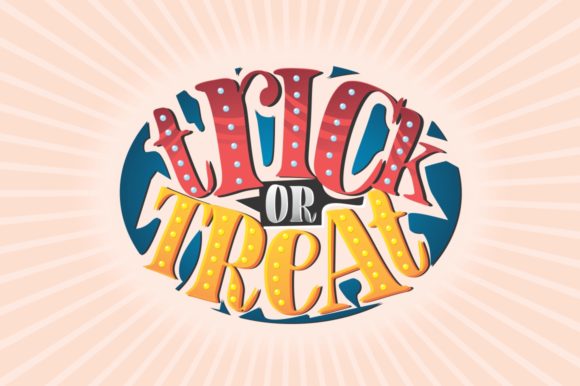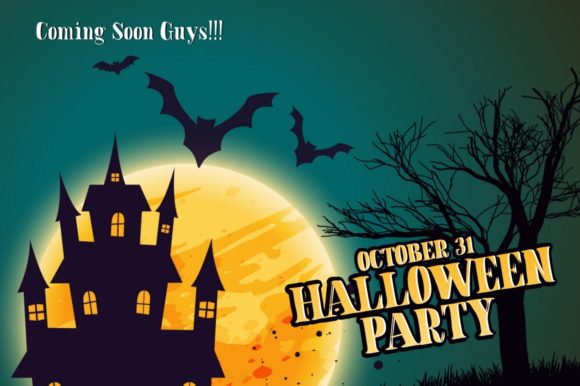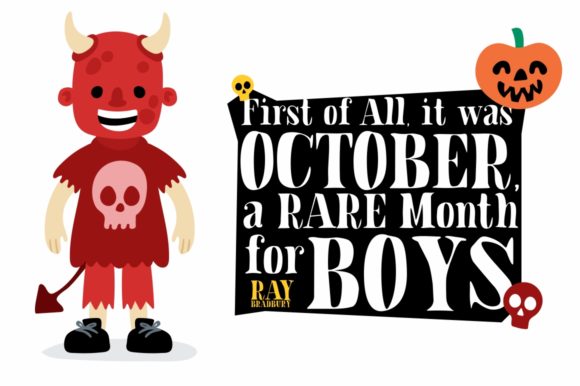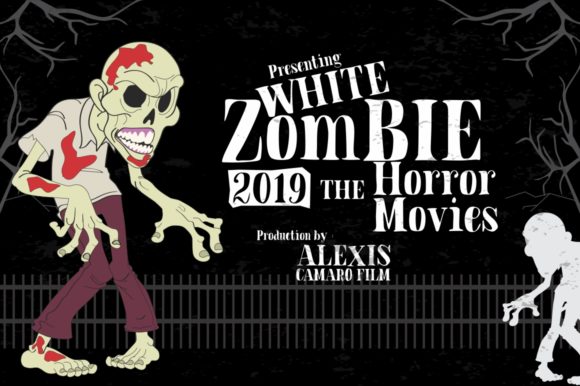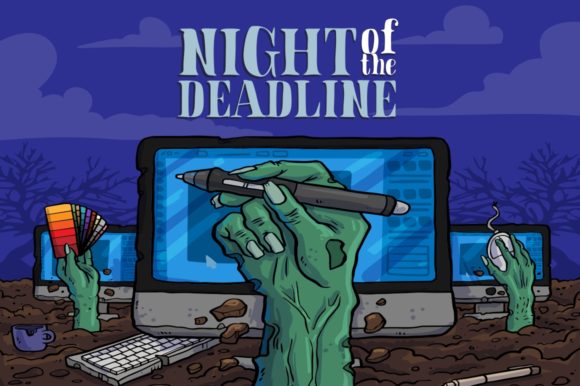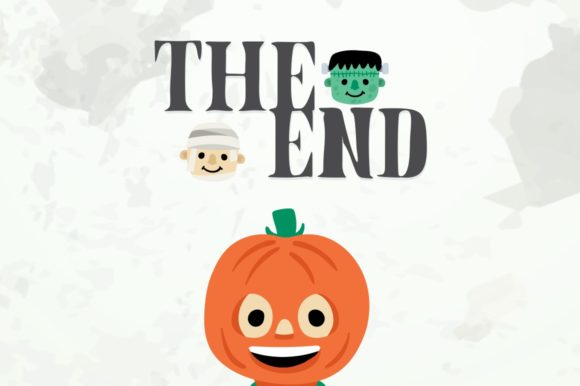
Happy Halloween with Blade Font: The Perfectly Spooky Display Typeface
Are you ready to add a spooky touch to your trick-or-treat projects? Look no further than the Blade Font, a creepy display typeface that’s sure to make your designs stand out. In this article, we’ll dive into the details of this eerie font and explore how it can elevate your Halloween-themed creations.
What is Blade Font?
Blade Font is a unique display typeface designed specifically for Halloween-themed projects. Its creepy, scary, and spooky design makes it perfect for creating eye-catching titles, headings, and phrases that will leave a lasting impression on your audience.
Key Features of Blade Font
- Creepy and Spooky Design: Blade Font features a distinctive design that’s sure to send chills down the spine. Its jagged edges and irregular shapes create a sense of eeriness, making it perfect for Halloween-themed projects.
- Highly Readable: Despite its creepy design, Blade Font is highly readable, even at smaller sizes. This makes it versatile for use in various projects, from posters and flyers to social media graphics and blog posts.
- Multilingual Support: Blade Font supports multiple languages, making it a great choice for designers and crafters who work with international clients or want to create content for a global audience.
- Easily Customizable: Blade Font comes with a range of customization options, allowing you to adjust the font size, style, and color to fit your project’s needs.
Uses of Blade Font
Blade Font is perfect for a wide range of Halloween-themed projects, including:
- Posters and Flyers: Create eye-catching posters and flyers for Halloween events, parties, or promotions.
- Social Media Graphics: Use Blade Font to create spooky social media graphics that will grab the attention of your followers.
- Blog Posts and Articles: Add a touch of Halloween spirit to your blog posts and articles with Blade Font.
- Crafting and DIY Projects: Use Blade Font to create custom titles and headings for your crafting and DIY projects, such as Halloween-themed crafts, decorations, or recipes.
Tips for Using Blade Font
Here are some tips for using Blade Font effectively in your projects:
- Pair with Other Fonts: Combine Blade Font with other fonts to create a unique and visually appealing design.
- Experiment with Colors: Try out different color schemes to find the perfect combination that matches your project’s theme.
- Use it Sparingly: Use Blade Font sparingly to create emphasis and add a touch of spookiness to your design.
| Author | FadeLine |
If you’re looking for a spooky and creepy display typeface to elevate your Halloween-themed projects, look no further than Blade Font. With its unique design, high readability, and customization options, Blade Font is the perfect choice for designers and crafters who want to create standout designs. So, get creative and have a Happy Halloween with Blade Font!